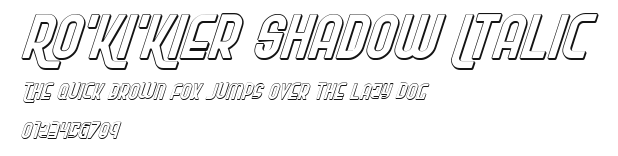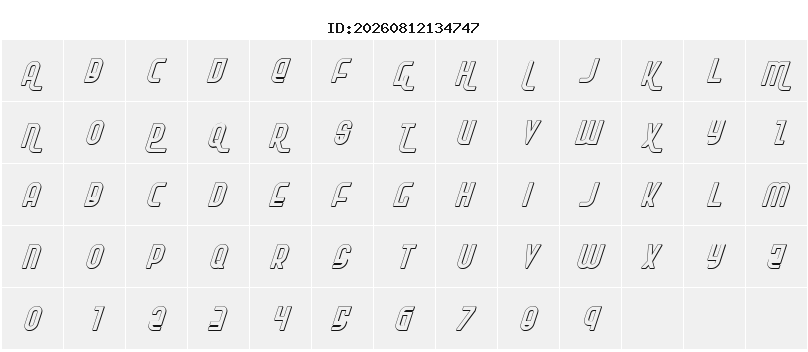
Ro'Ki'Kier Shadow Italic Preview
• Font Name: Ro'Ki'Kier Shadow Italic
• Full Font Name: Ro'Ki'Kier Shadow Italic
• PostScript Name: Ro'Ki'KierShadowItalic
About Ro'Ki'Kier Shadow Italic.ttf
Ro'Ki'Kier Shadow Italic.ttf is a modern, elegant sans-serif font designed for ultimate readability and visual harmony. Perfect for branding, headlines, web design, and print materials.